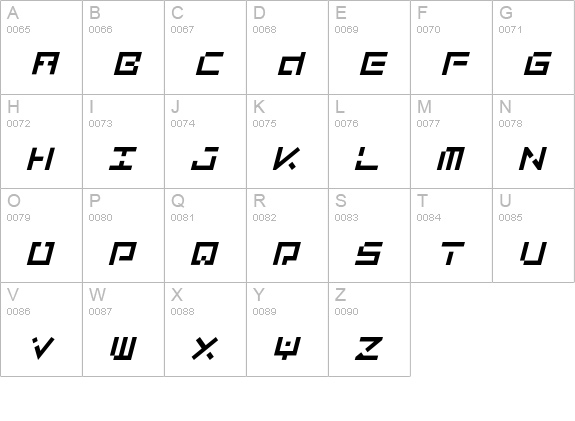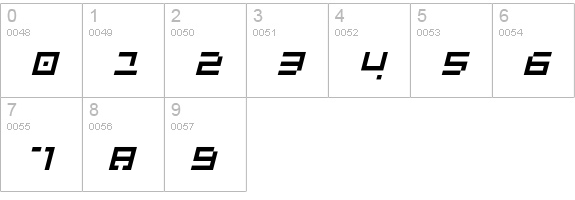
LuggageBrokenRegularObl Font Details
LuggageBrokenRegularObl font is a unique and eye-catching display typeface that adds a touch of edgy style to any design project. With its jagged and broken letterforms, this font exudes a sense of ruggedness and urban flair. Perfect for headlines, posters, and other creative projects that require a bold statement. The best part? LuggageBrokenRegularObl font is available for free download at FontsMarket.com, making it easily accessible to designers and creatives looking to add a bit of personality to their work. Get your hands on this one-of-a-kind font and take your designs to the next level!